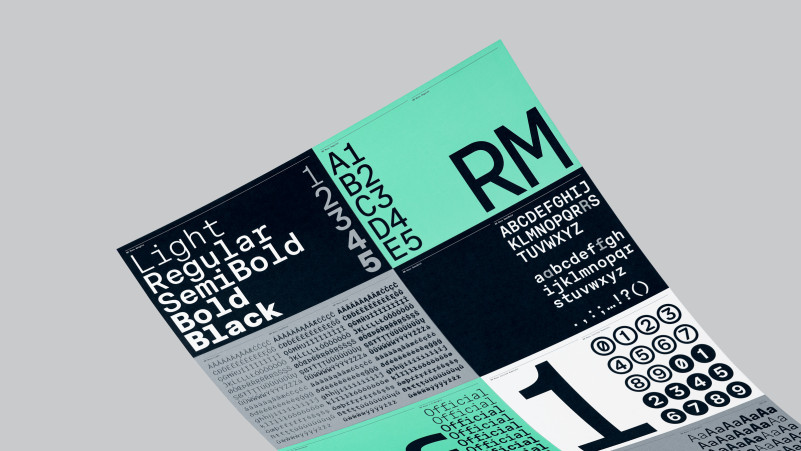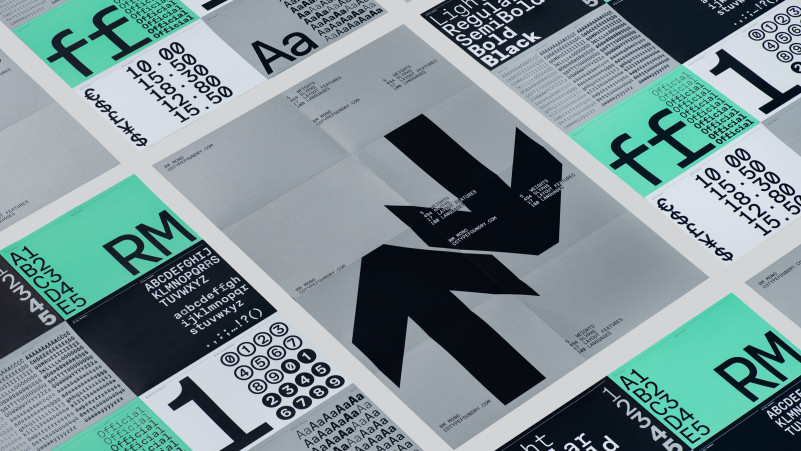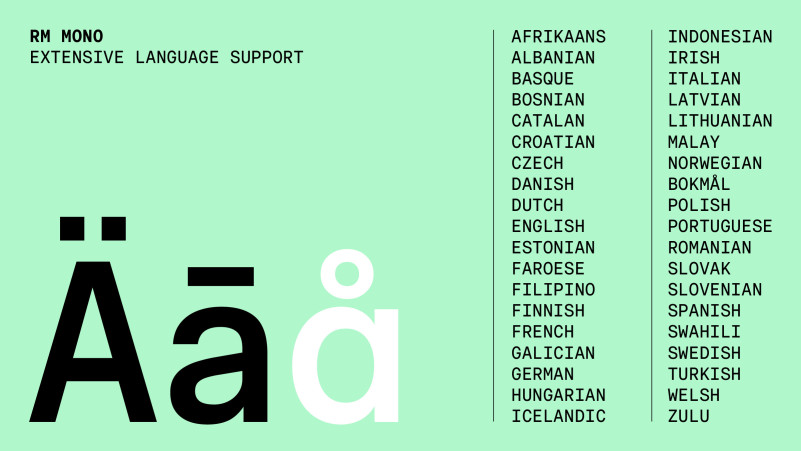
RM Mono Font
Grab our new font, RM Mono Sans Font is the monospaced version of RM Neue. Each character in RM Mono fits in a box of the same width (600 units). While developing RM Mono, we also took the time to update RM Neue with a few new glyphs, tighter tracking, better kerning, and an overall facelift.
This monospaced version closely follows the original design of RM Neue and its utilitarian roots. There is an alternate single-storey ‘a’, and ‘f’ with a bottom serif as well as a new alternate ‘R’. There are arrows, fractions, superior and inferior numerals, as well as multiple geometric symbols to choose from. With the punctuation in RM Mono being a little bit oversized and the Regular weight being a little bit heavier than a usual grotesque, we believe that it could even perform well if used as a coding font.
RM Mono is available in 5 weights, ranging from Light to Black, matching the weights of its sister family, RM Neue. The extensive language support (Latin Extended A) allows type setting in most European languages written with the Latin script
As always with CoType fonts, the focus was to create a type family that functions well for graphic design purposes, like posters, logos, and booklets. RM Mono will pair very well with RM Neue to create a unique house style for any business – as we have often seen Aeonik and Aeonik Mono being used side by side to create more interesting typographies hierarchies.